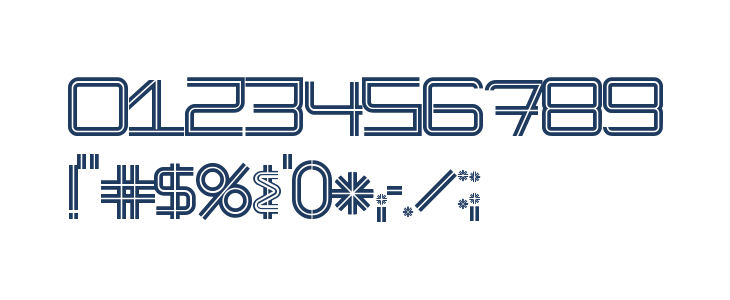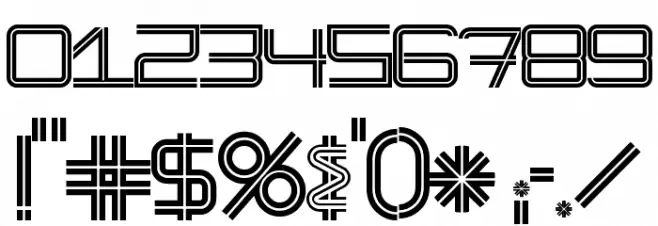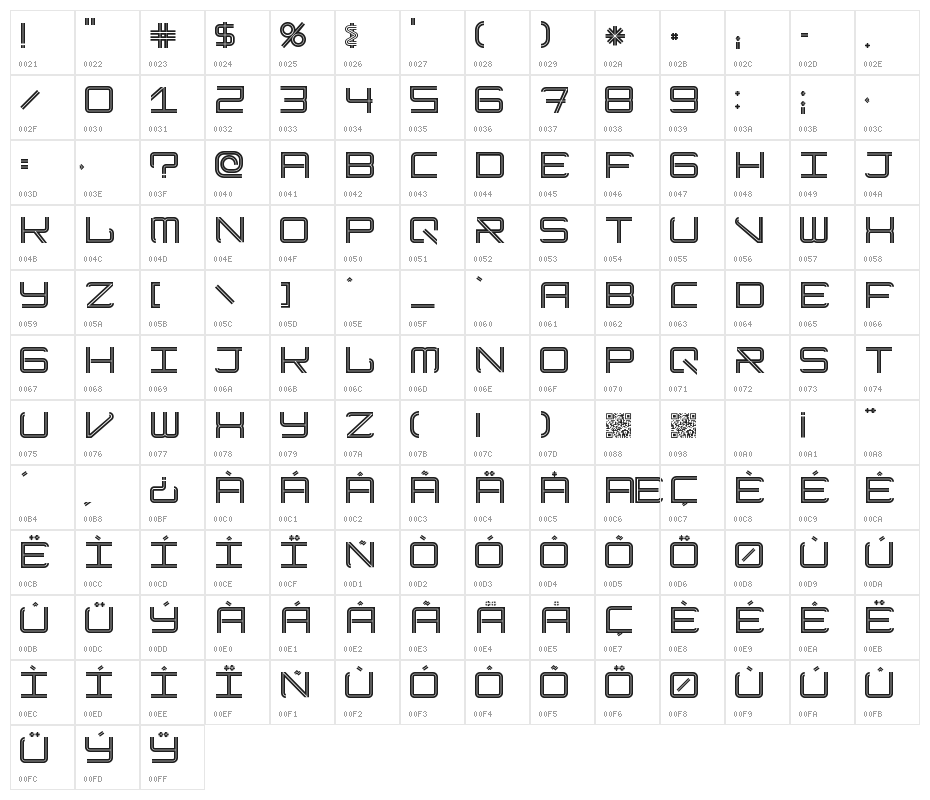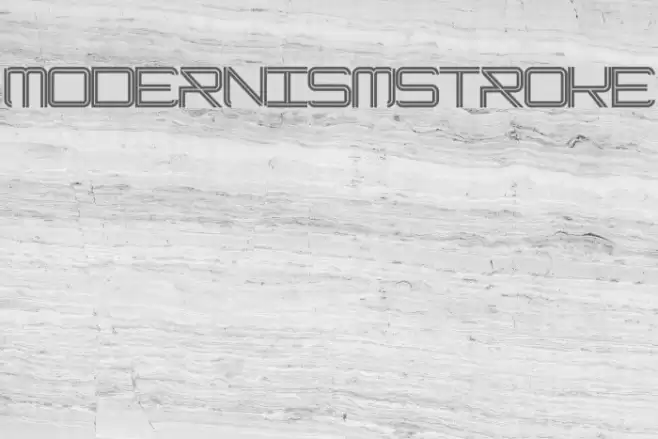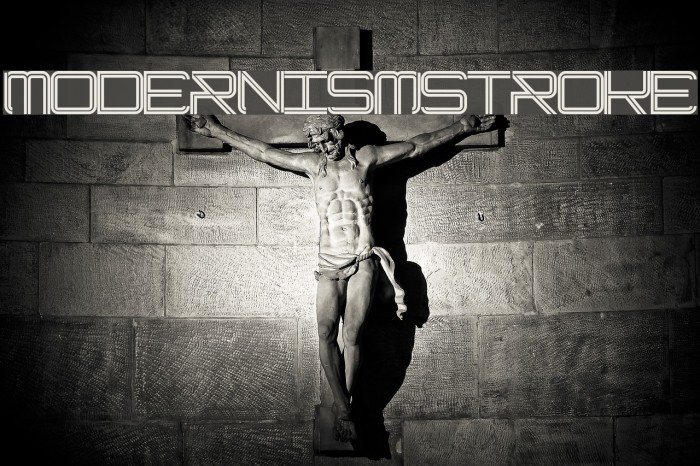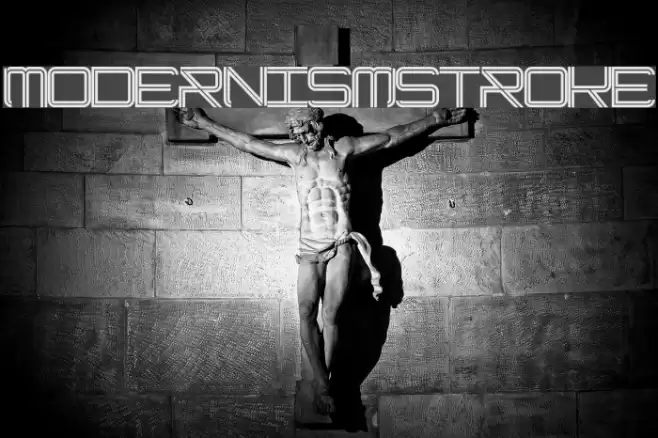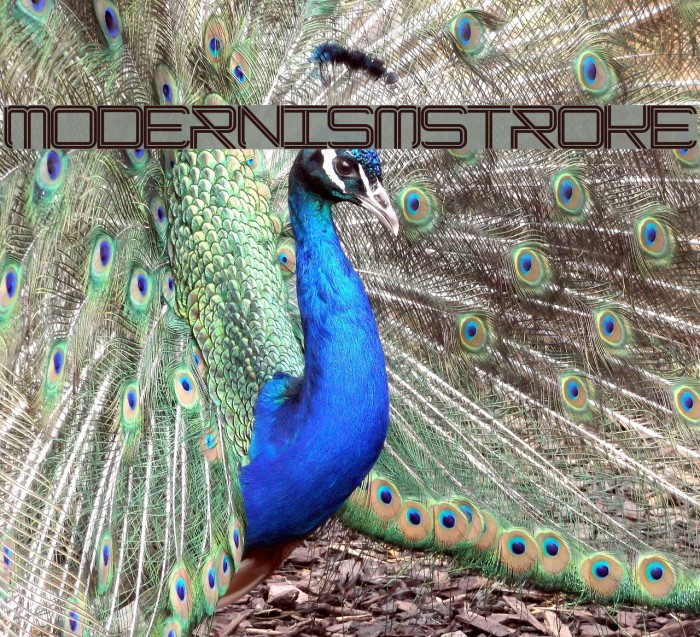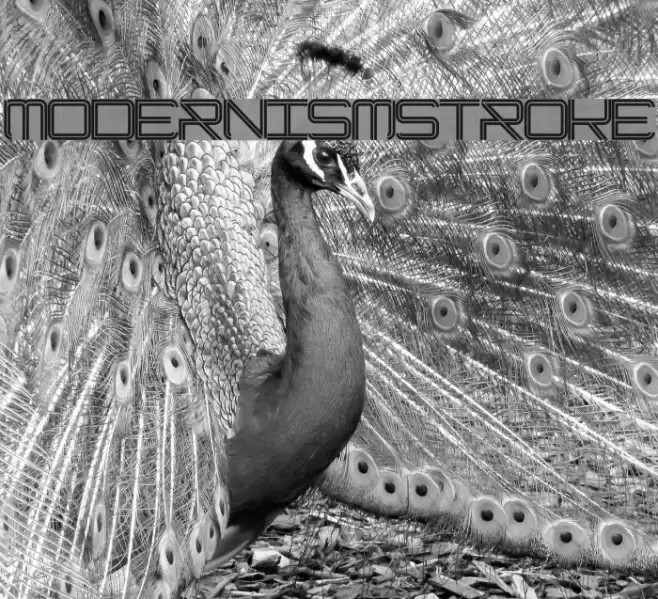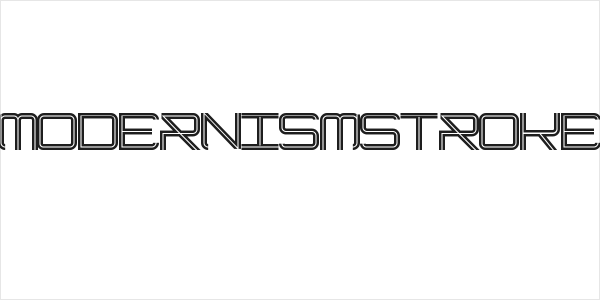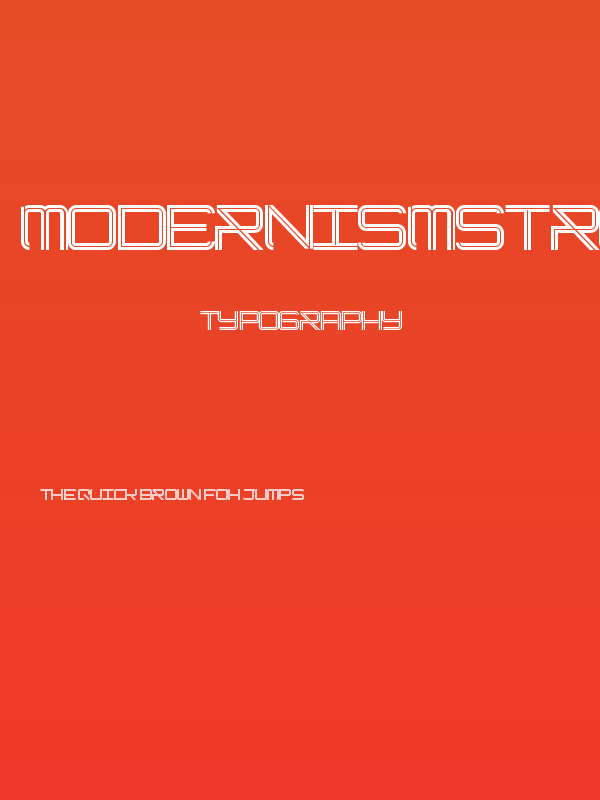
ModernismStroke Font
ModernismStroke Description
This font features a modern, geometric design with a distinct double-line stroke that creates a futuristic and technical appearance. The characters are constructed with precision, showcasing a blend of straight lines and sharp angles. The uppercase and lowercase letters maintain a consistent style, emphasizing uniformity and balance. The numbers and special characters follow the same design principles, ensuring a cohesive look across all elements. The font's unique structure makes it stand out, offering a bold statement in any design project.